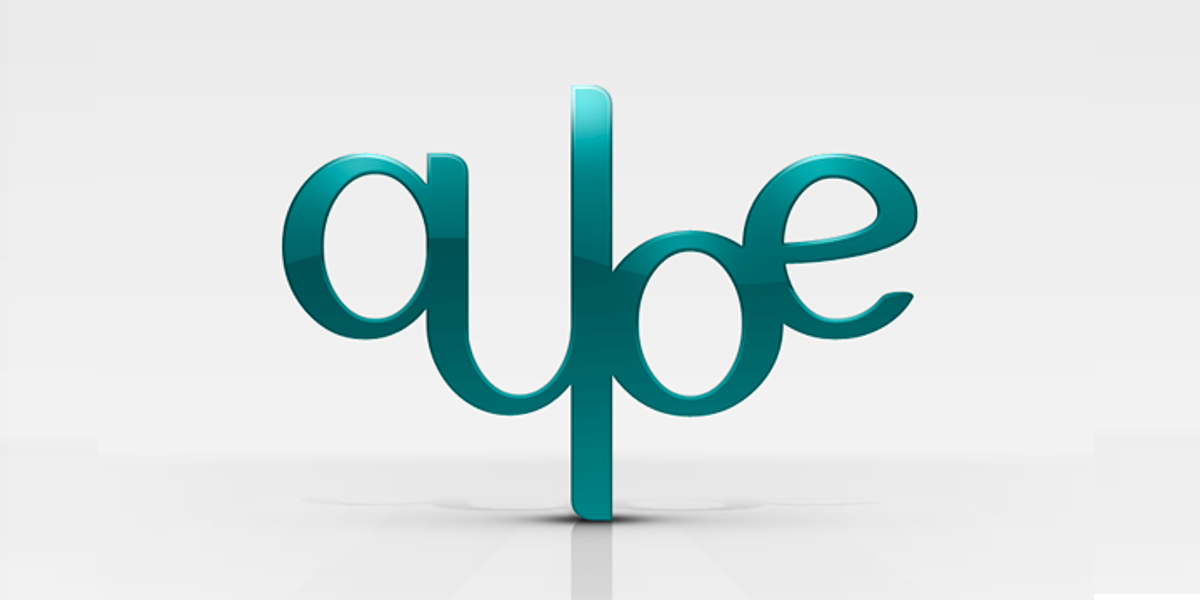
Auloe
The Auloe typeface is a classic among Latin sans serif styles. It is widely accepted for long texts such as book paragraphs or essays, headers, or logos. Its three weights provide perfect visual balance for reading.